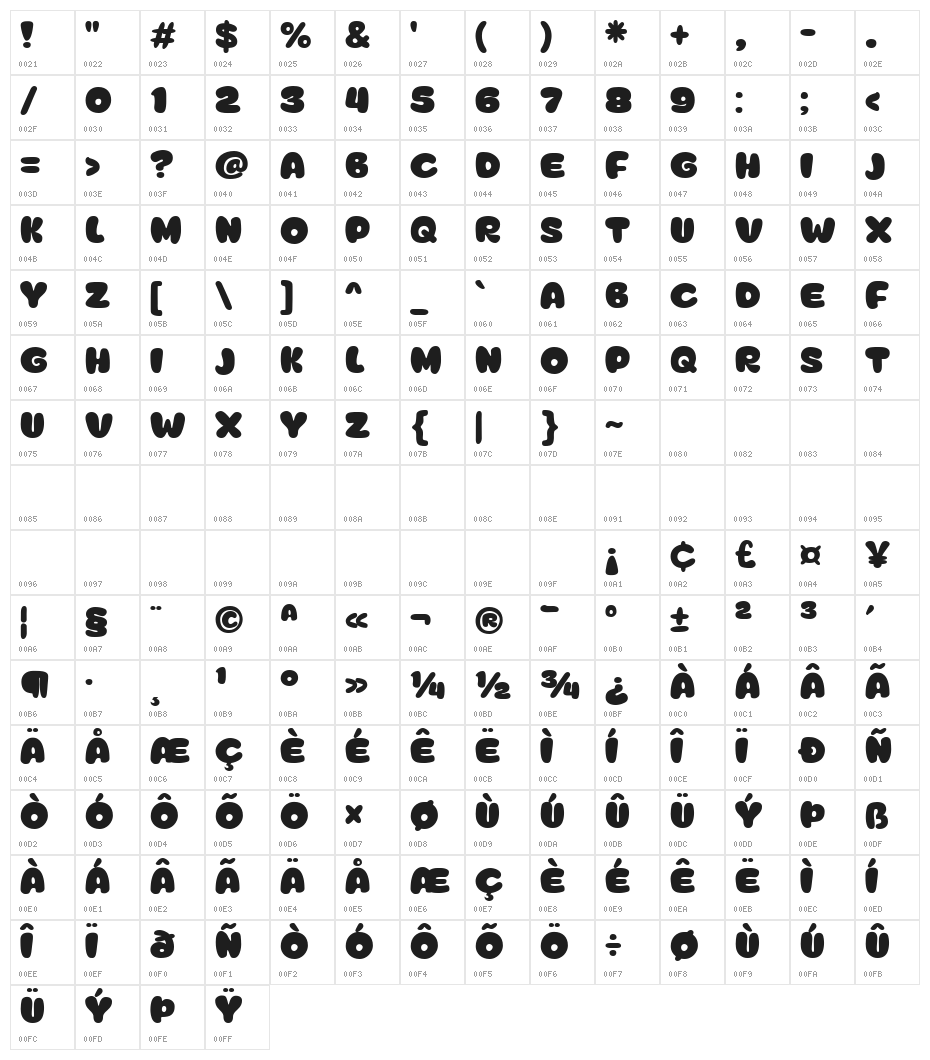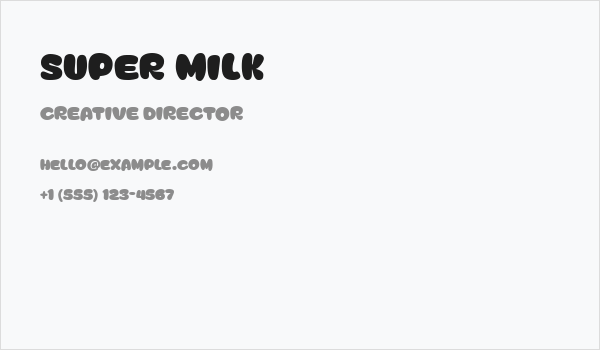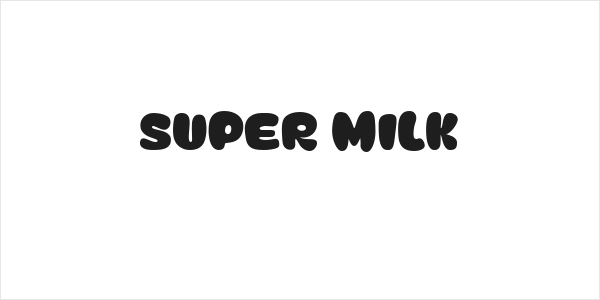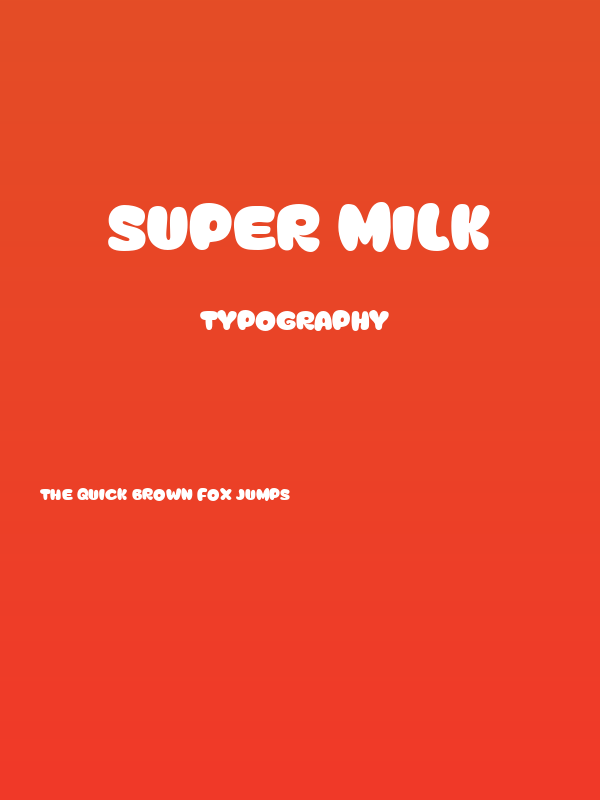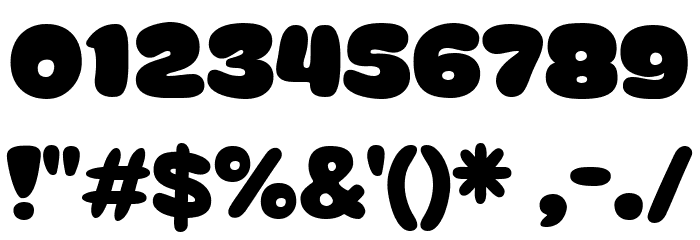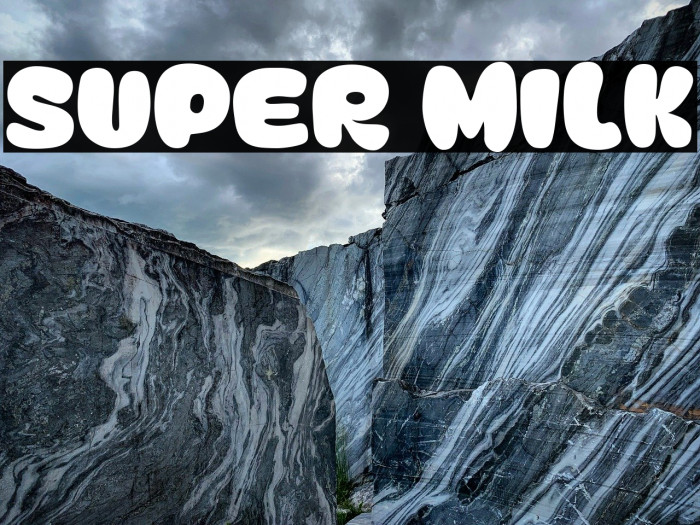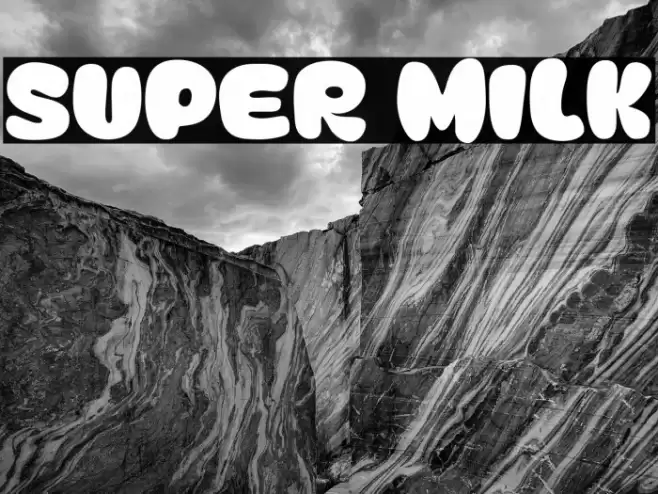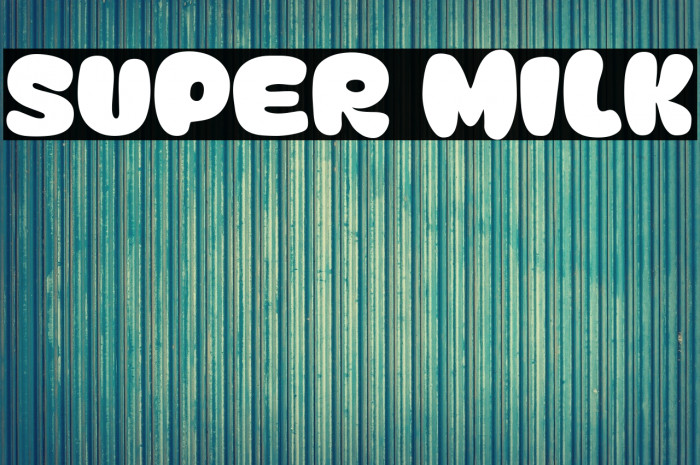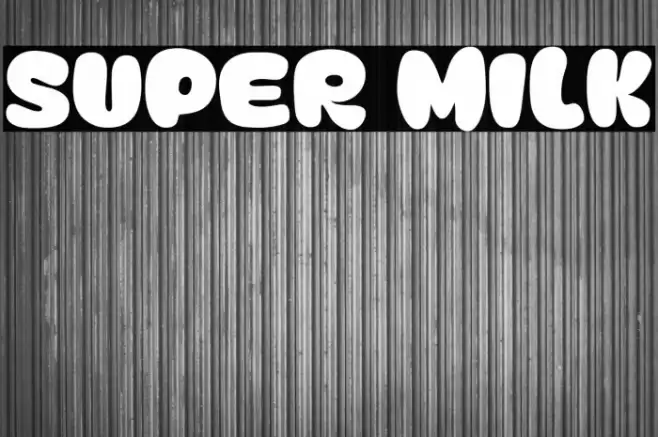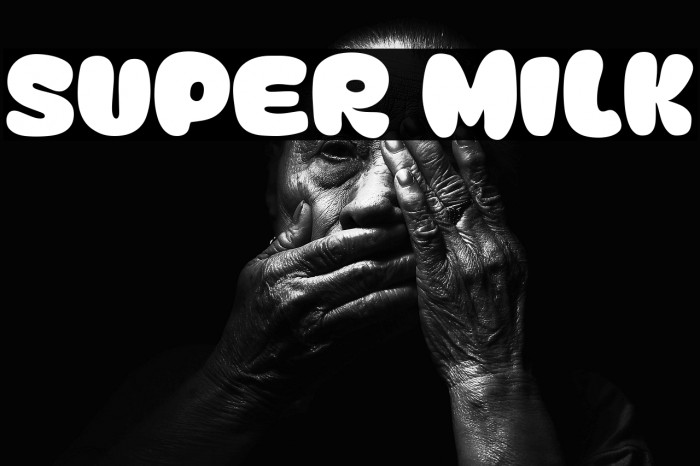
Super Milk Font
Super Milk Description
This playful and bold typeface features rounded, bubbly characters that exude a sense of fun and whimsy. The letters are thick and have a uniform stroke width, giving them a strong presence on the page. The rounded edges and soft curves create a friendly and approachable aesthetic, making it ideal for designs that aim to convey warmth and cheerfulness. The numbers and special characters maintain the same playful style, ensuring consistency across all text elements.
| Overall Style | Playful |
| Proposed Projects | Perfect for children's books, playful branding, party invitations, or any project that requires a fun and friendly touch. |